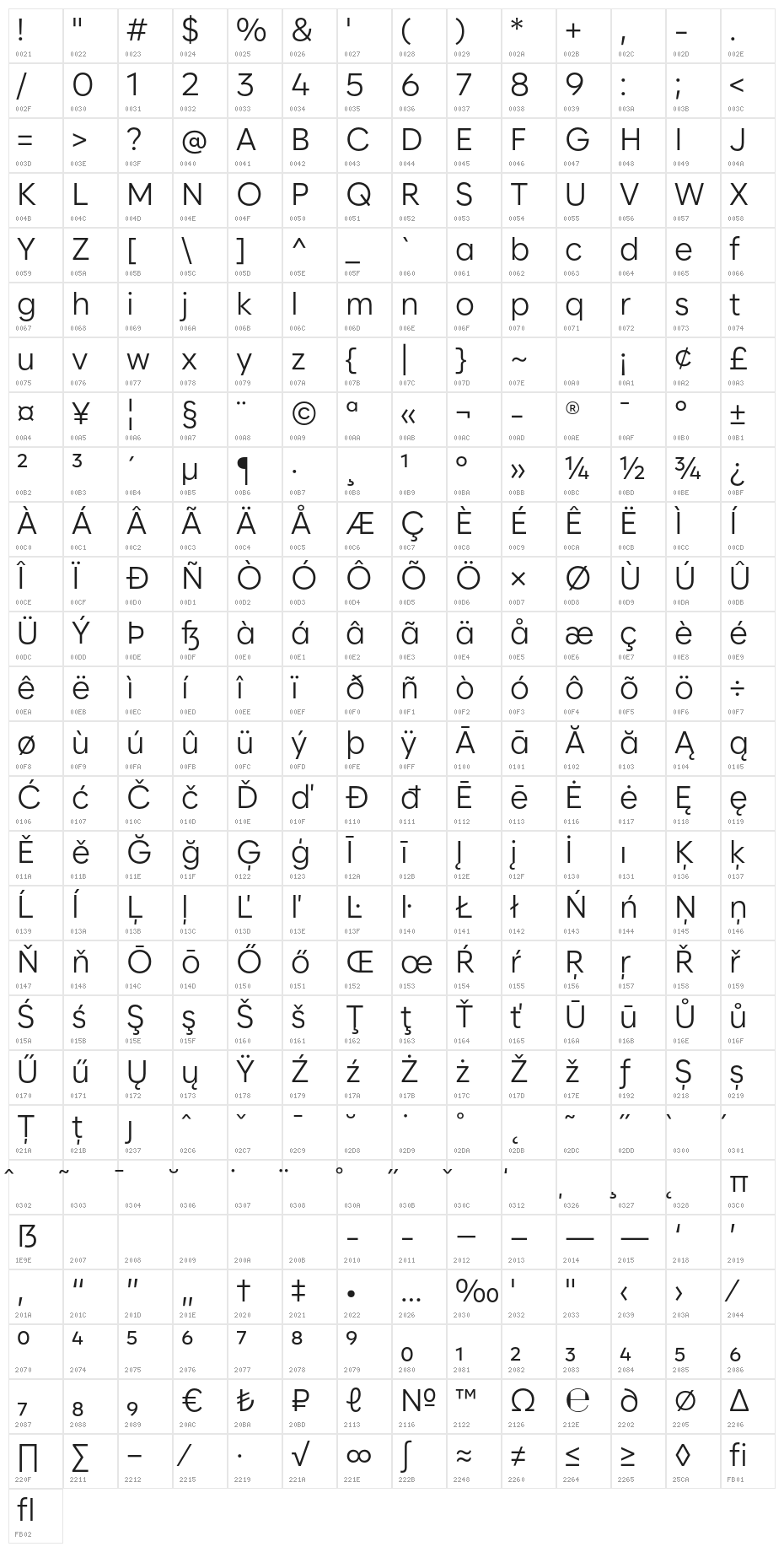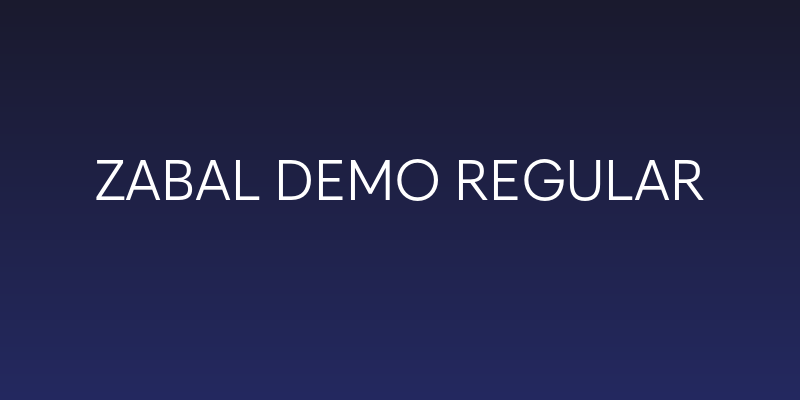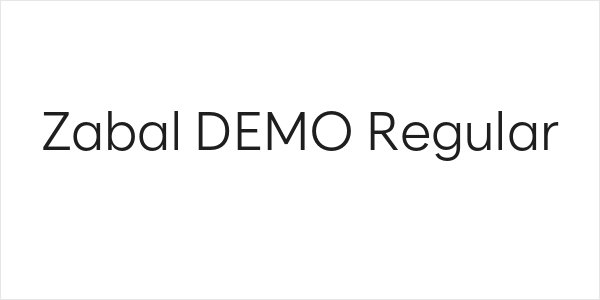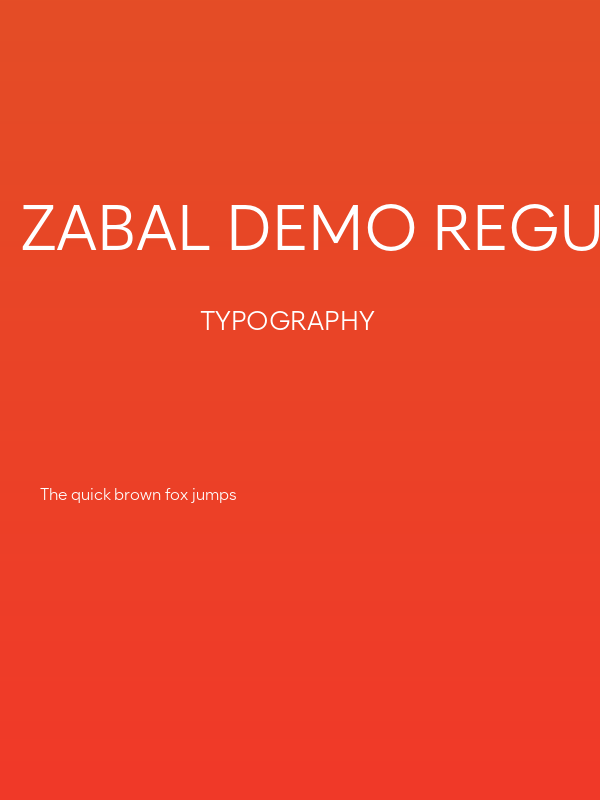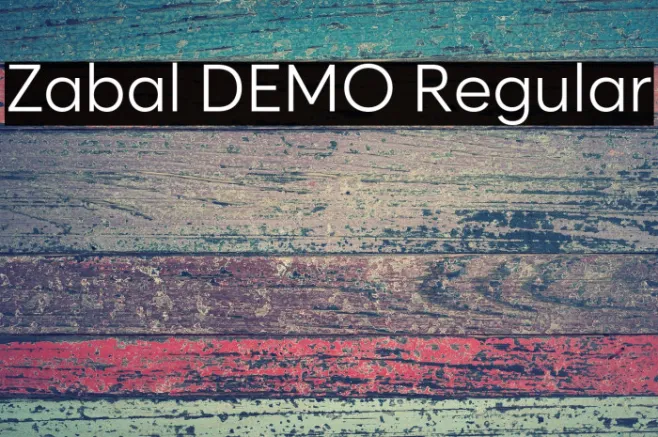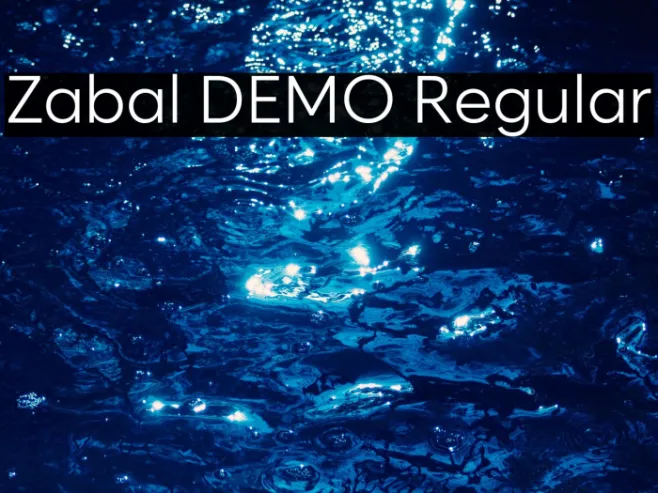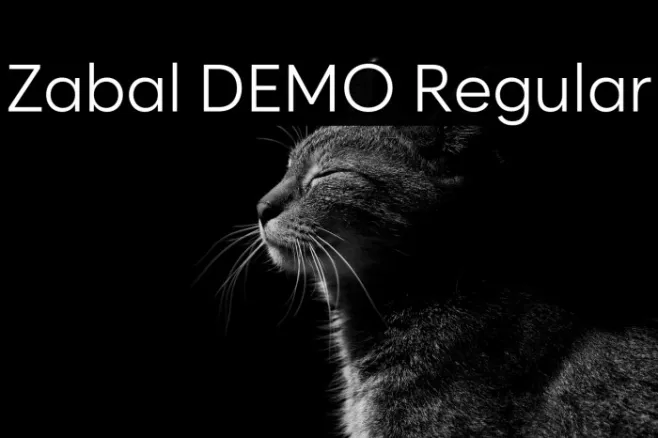
Zabal DEMO Regular Font
Zabal DEMO Regular Description
This typeface features a clean and modern design with a geometric structure. The characters are evenly spaced, providing a balanced and harmonious appearance. The uppercase letters are bold and assertive, while the lowercase letters maintain a consistent and smooth flow. The numerals are clear and easily distinguishable, making them suitable for various applications. Special characters are well-integrated, ensuring versatility in design projects. Overall, this font exudes a contemporary and professional vibe, making it ideal for digital and print media.